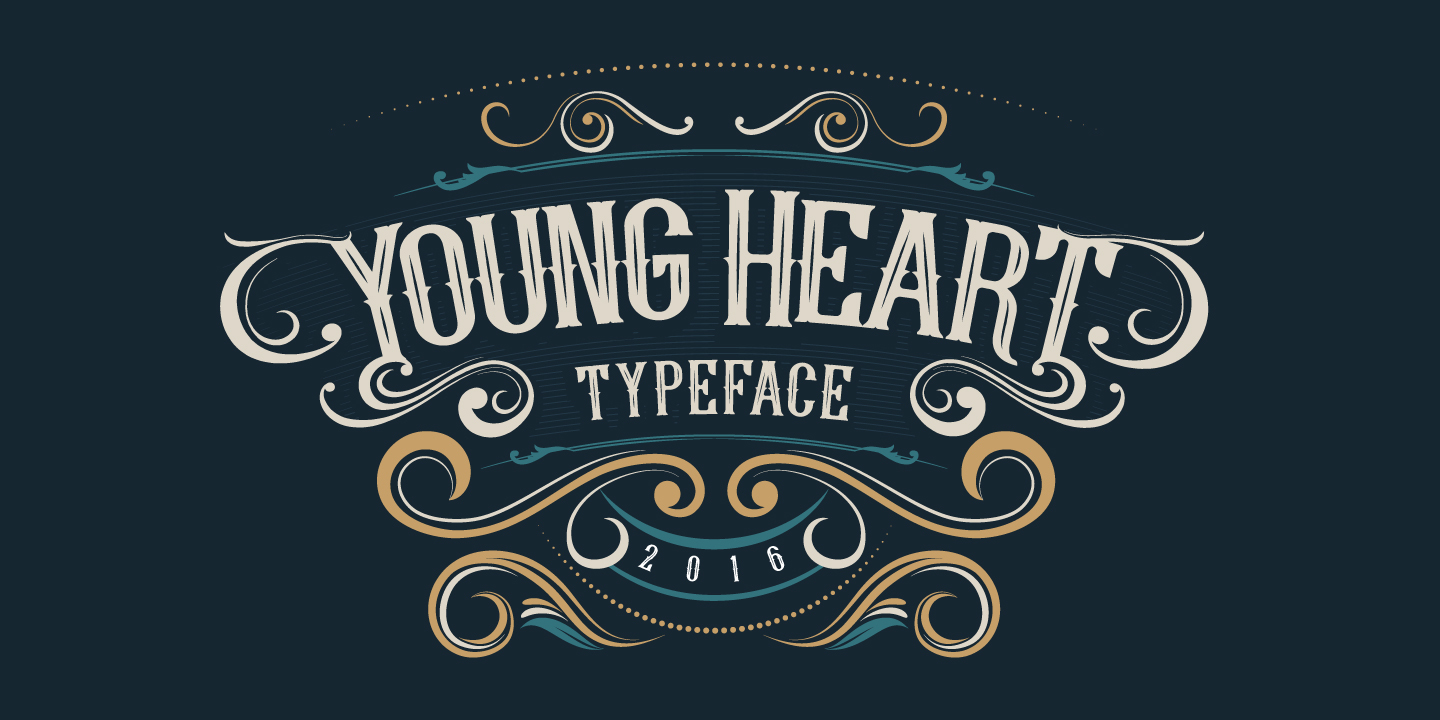
Young Heart Font is ideal for youth mentorship programs, teen romance novels, first love greeting cards, young adult dating apps, teenage fashion brands, high school yearbook designs, and vibrant coming-of-age celebrations. This charming typeface captures the innocent excitement and pure emotion of young love, bringing youthful romance and heartfelt sincerity to any design project celebrating first love experiences and teenage emotional connections.
What makes Young Heart Font exciting is its tender combination of youthful innocence and romantic sincerity that perfectly captures the essence of first love and teenage emotional discovery. The font features playful letterforms with heart-inspired curves and sweet character variations that evoke both the flutter of young romance and the genuine emotion of teenage relationships. Its endearing character creates instant emotional connection while maintaining excellent readability for both romantic stationery and youth-focused marketing applications.
The Young Heart Font family includes regular and bold weights with complementary script variations and romantic ornamental elements. The character set features love ligatures, heart symbols, youthful alternates, and sweet decorative accents that enhance the font's romantic appeal. Extended character support includes emotional symbols and youth culture icons for authentic teenage romance and young adult applications.
Whether you're designing youth romance brands, creating teenage celebration materials, or developing young adult content, Young Heart Font Free Download provides exceptional sweetness and versatility. This heartwarming typeface transforms ordinary text into touching romantic experiences that celebrate young love while establishing memorable brand recognition in competitive youth culture and teenage romance marketplaces.